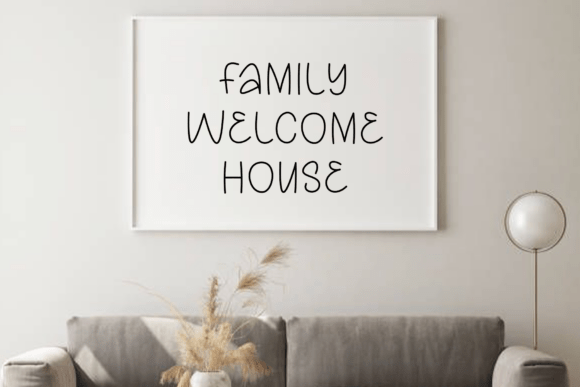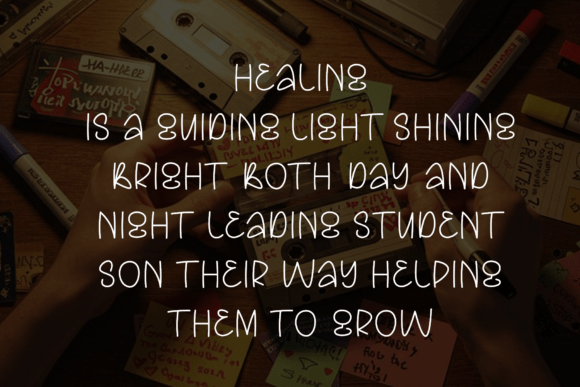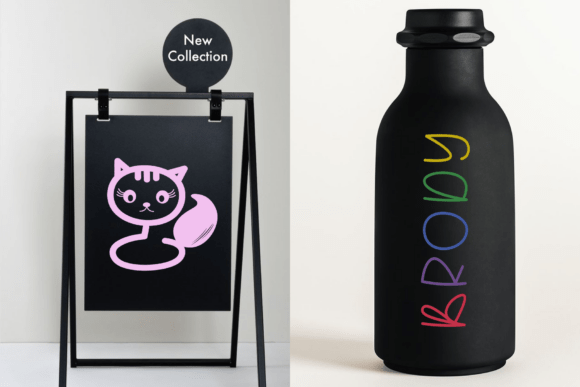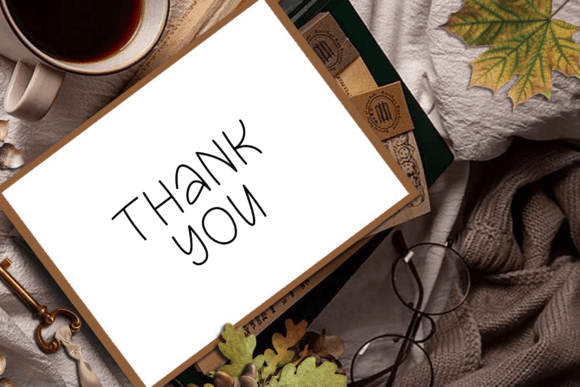
Introducing Ghost Meong Font: Whimsical Feline-Inspired Typography
Are you a designer or crafter looking for a unique and playful font to add a touch of whimsy to your creative projects? Look no further than Ghost Meong Font, a modern display font that combines thin, monolinear strokes with feline-inspired elements. In this article, we’ll dive into the features and benefits of Ghost Meong Font, and explore how it can elevate your branding, book titles, menus, and social media content.
The Inspiration Behind Ghost Meong Font
Ghost Meong Font is a charming and whimsical typeface that draws inspiration from the world of felines. The font’s design features thin, monolinear strokes that give it a clean and airy appearance. The letterforms are tall and expressive, making it perfect for display purposes. But what sets Ghost Meong Font apart is its unique incorporation of cat icons, which add a playful touch to the typography.
Unique Features of Ghost Meong Font
The most striking feature of Ghost Meong Font is the inclusion of two unique cat icons. One icon depicts a stylized cat face with whiskers, while the other shows a feline silhouette. These icons serve as decorative bookends to the typography, adding a touch of personality and whimsy to any design. The font also features:
- Thin, monolinear strokes for a clean and airy appearance
- Tall, expressive letterforms for maximum impact
- Unique cat icons for added personality and whimsy
- Perfect for display purposes, including headings, titles, and captions
Perfect for Pet-Themed Branding and More
Ghost Meong Font is a perfect choice for designers and crafters working on pet-themed branding projects. Whether you’re creating a logo for a pet store, animal café, or pet grooming service, this font is sure to delight. The playful and whimsical design makes it also suitable for:
- Playful children’s book titles
- Boutique animal café menus
- Creative social media content that requires a lighthearted touch
- Any project that needs a simple yet artistic font
Ghost Meong Font offers a range of benefits for designers and crafters, including:
- Easily create eye-catching and engaging designs with the font’s unique features
- Add a touch of personality and whimsy to your projects
- Perfect for a wide range of creative projects, from branding to social media content
- Clean and airy design makes it easy to read and understand
Tips for Using Ghost Meong Font
To get the most out of Ghost Meong Font, here are a few tips:
- Use it for display purposes, such as headings and titles
- Pair it with a clean and simple font for body text
- Don’t be afraid to get creative and add your own personal touch
Ghost Meong Font is a unique and playful typeface that is sure to delight designers and crafters. With its thin, monolinear strokes, tall letterforms, and feline-inspired elements, it’s perfect for a wide range of creative projects. Whether you’re working on pet-themed branding, playful children’s book titles, or creative social media content, Ghost Meong Font is a great choice. So why not give it a try and see how it can elevate your designs?